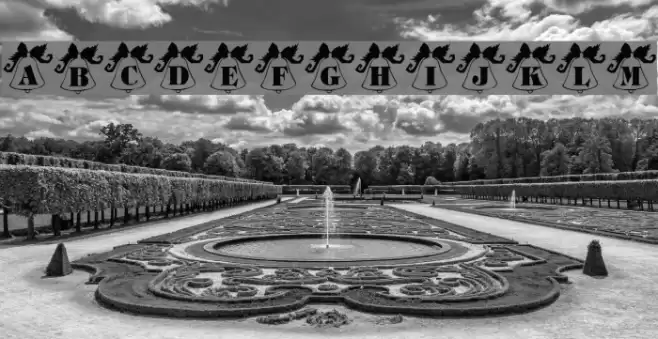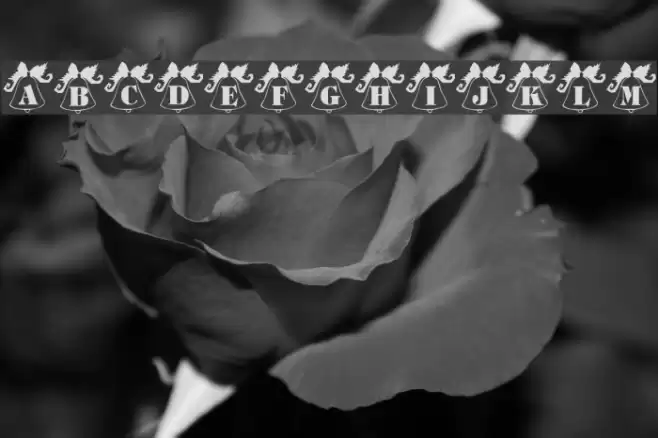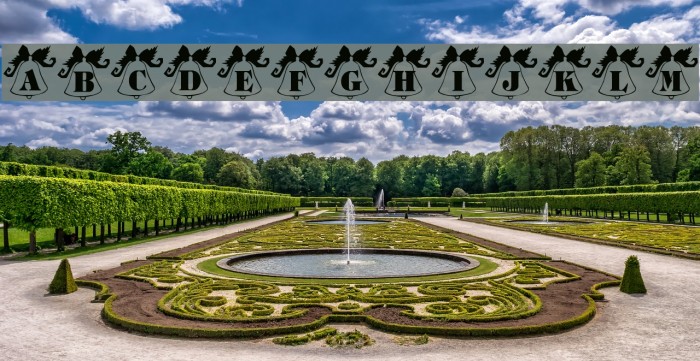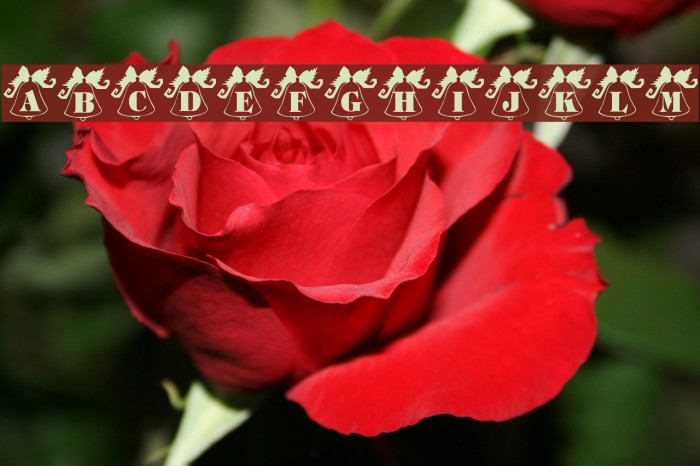
ryp_xmasbells Font
ryp_xmasbells Description
This decorative font features uppercase letters adorned with festive elements, specifically Christmas bells and ribbons. Each character is encased within a bell shape, giving it a unique and playful holiday theme. The letters are bold and prominent, making them stand out against the intricate designs of the bells. The overall style is whimsical and festive, perfect for holiday-themed projects. The font's design is consistent across all characters, maintaining a uniform look that enhances its decorative appeal.
A festive, decorative font with letters inside Christmas bells from Uncategorized fonts.
- Proposed Projects: Ideal for holiday cards, festive banners, Christmas event invitations, and seasonal marketing materials.